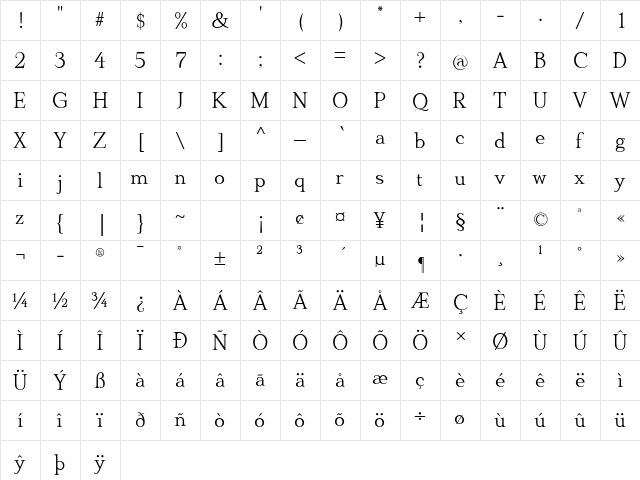
DionisiiOTF Lt Light
Design Context for DionisiiOTF Lt Typeface
DionisiiOTF Lt is a composed and adaptable typeface that performs quietly and consistently across a wide range of design contexts. Its slender proportions lend an understated elegance to any composition.